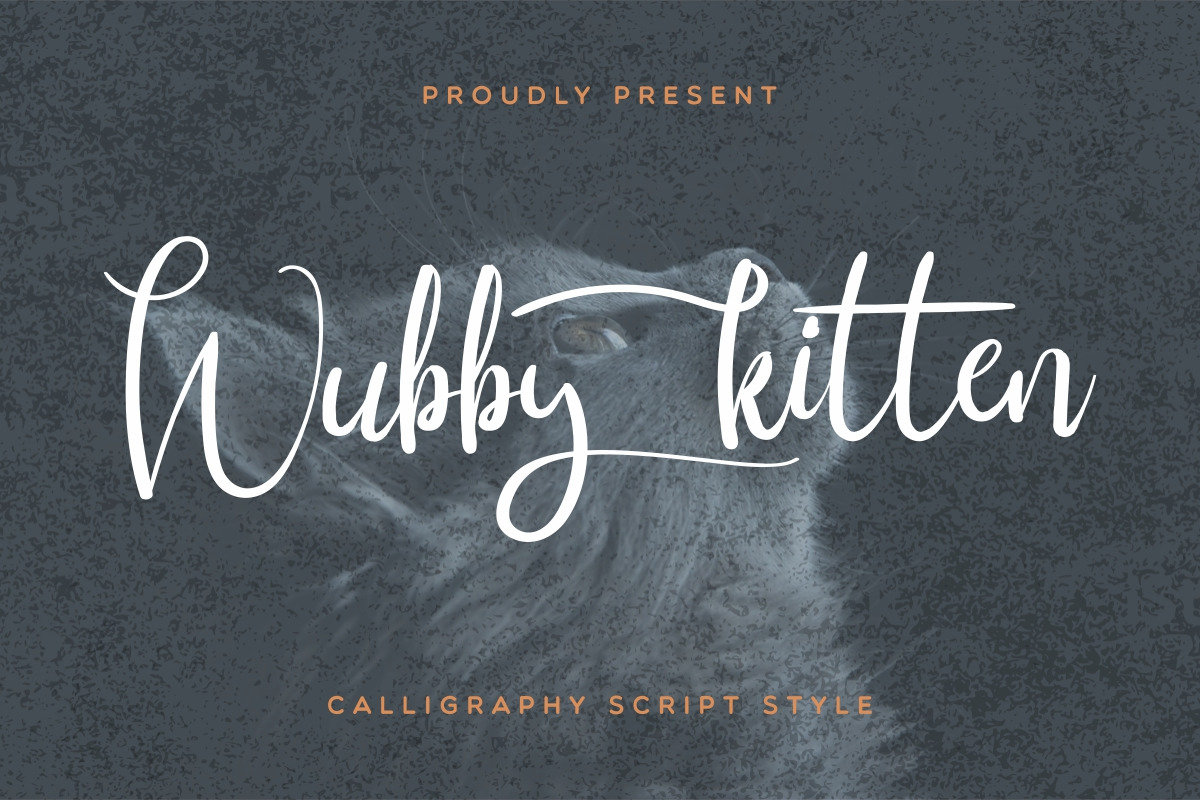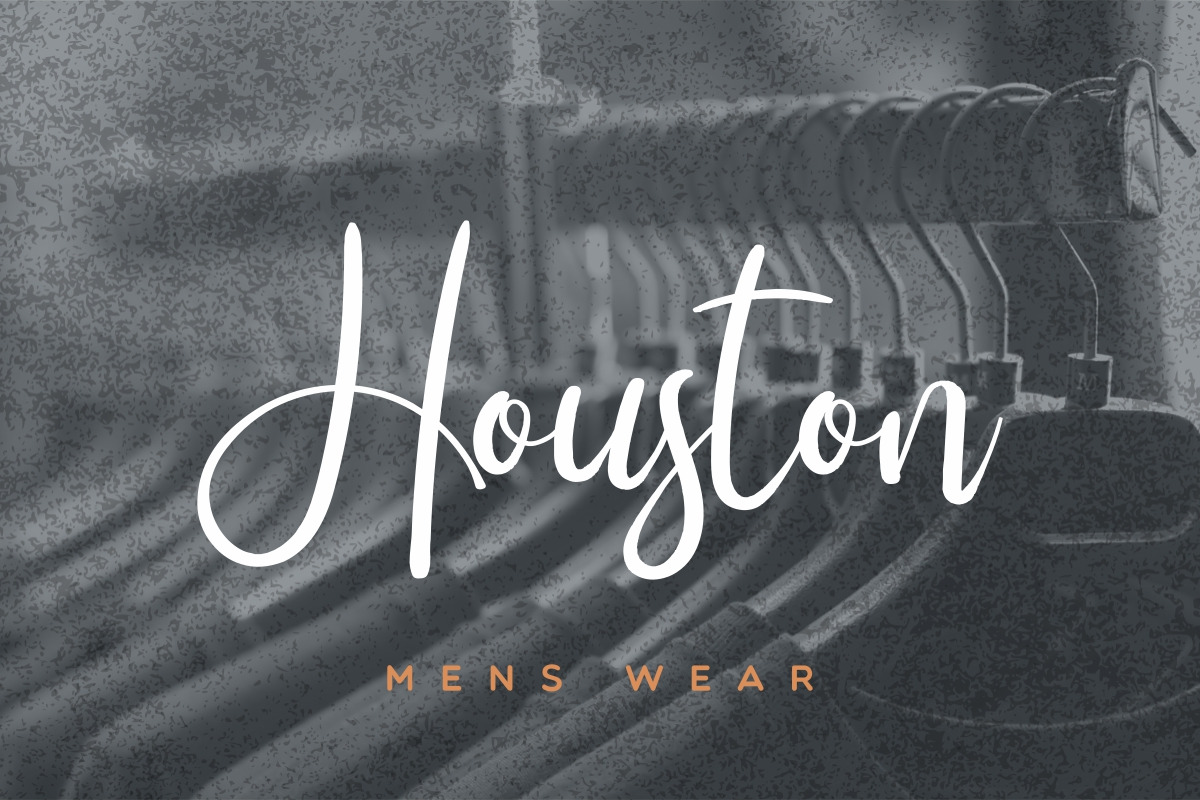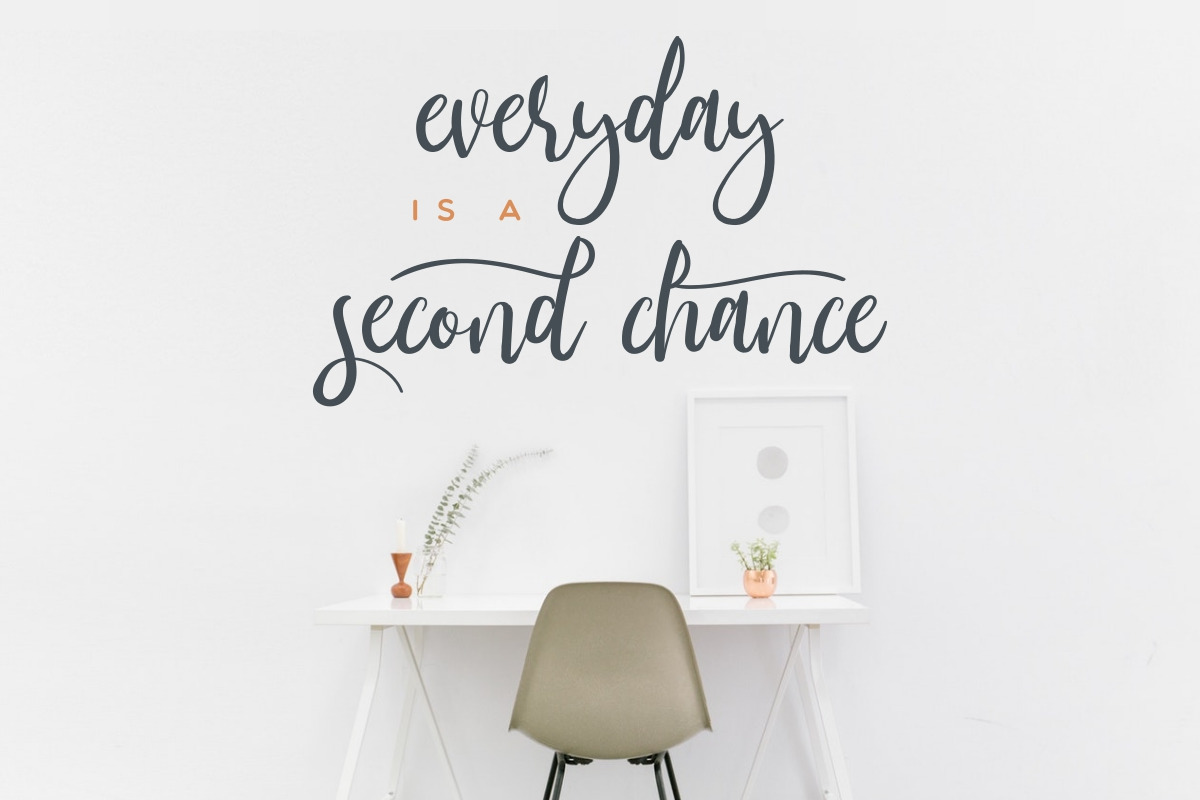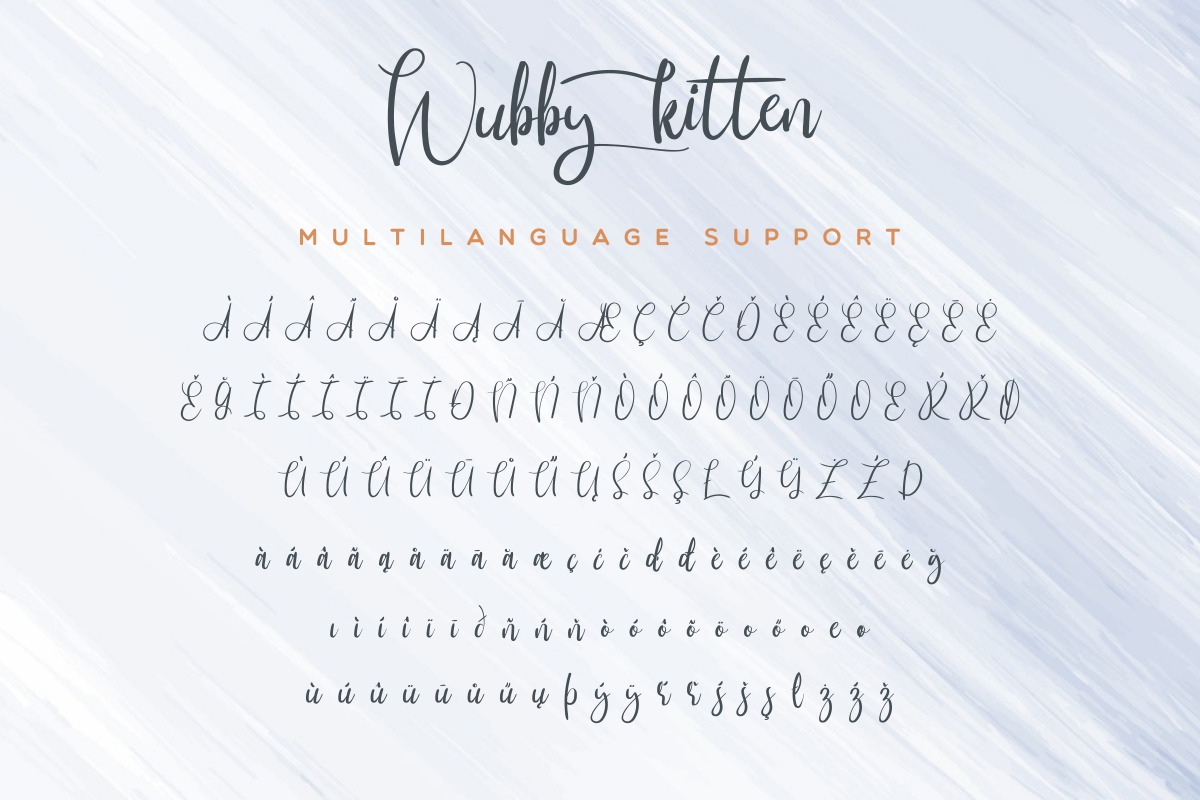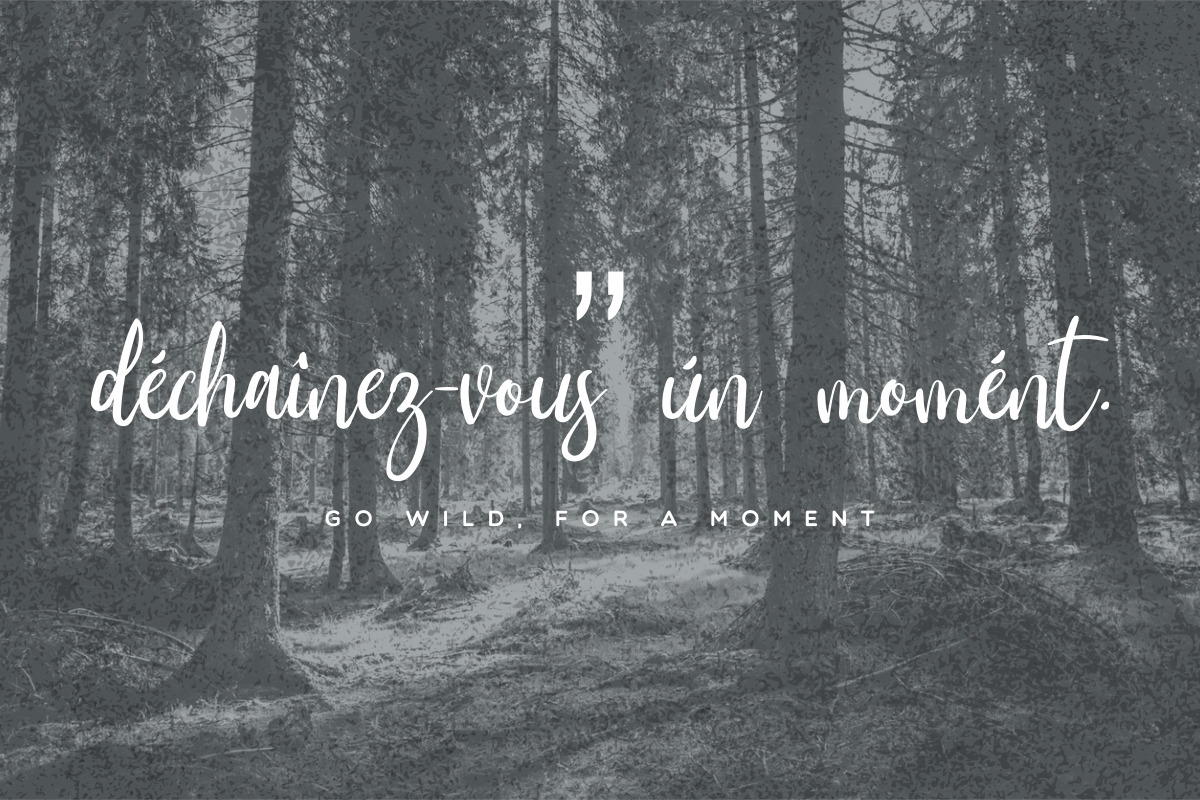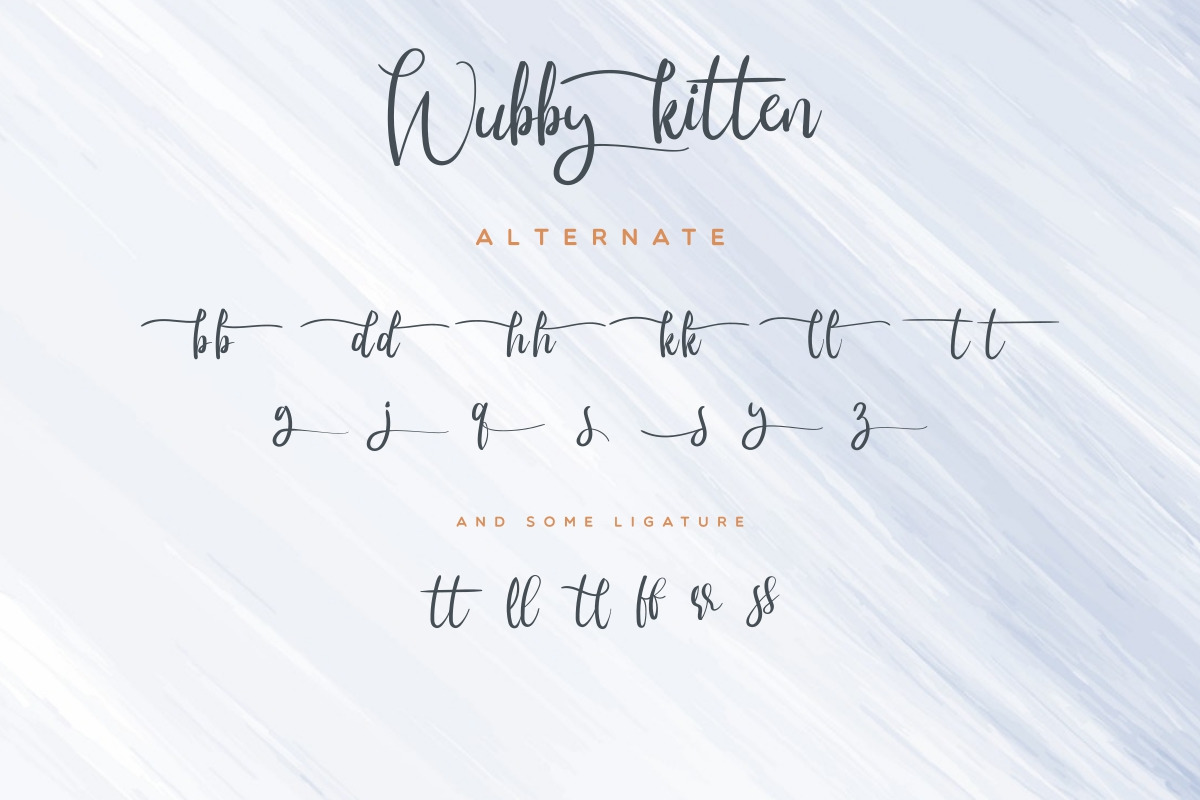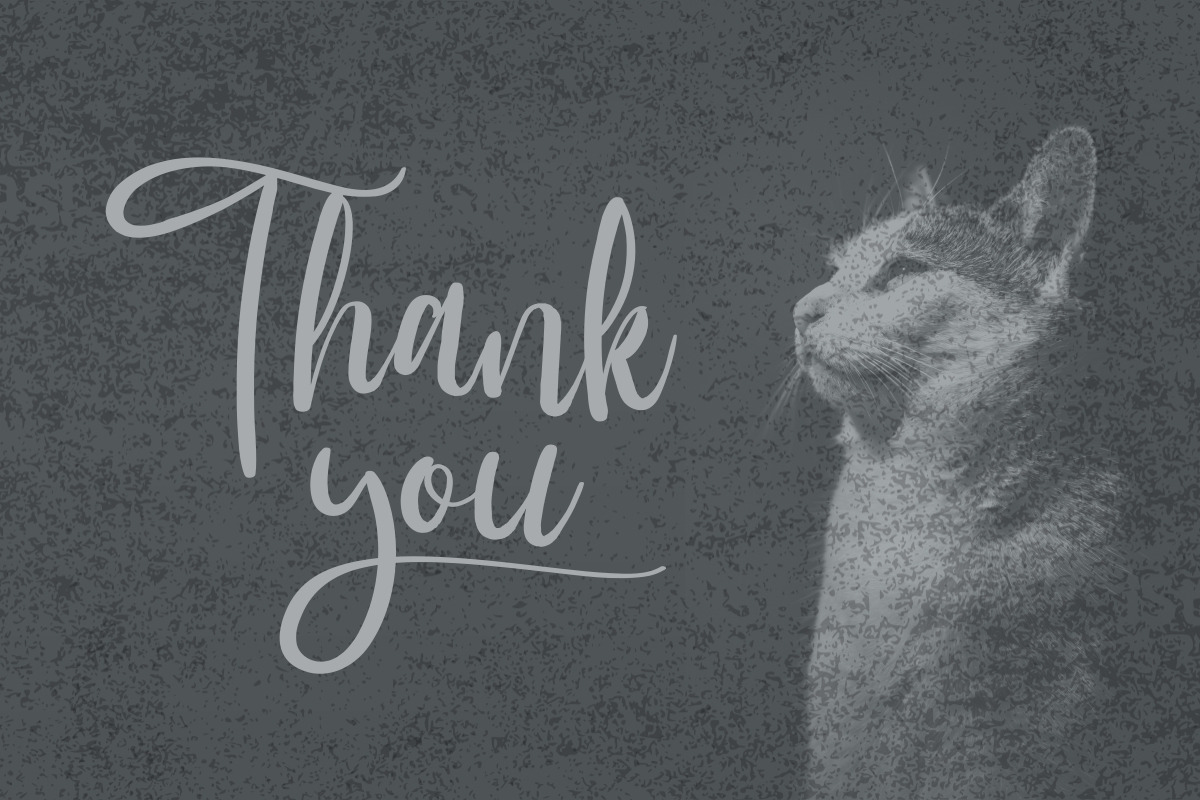
Wubby Kitten Calligraphy Font
The newest font from our lovely artist : Wubby Kitten Calligraphy Font
This is a Calligraphy font, handcrafted from our Studio here in, Indonesia. The artists/designers of this beautiful tyeface is Saepul and Suci.
Wubby Kitten Calligraphy Font is an exclusive calligraphy script typeface with brush style. This font has a stunning characters set, perfectly managed with well spaced and kerning. The theme style of this font will elegant, vintage, stylish, sophisticated and classic brush calligraphic natural lettering style.
Wubby Kitten Calligraphy Font will be stunning for any projects with extended licenses including : branding, logo, stationery, business card, signage, flyer, brochure etc. Almost all industries will be match for this typeface: wedding, events, photography, architect, law firm, florist, gardening, makeup artist, travel, hotel, musician etc